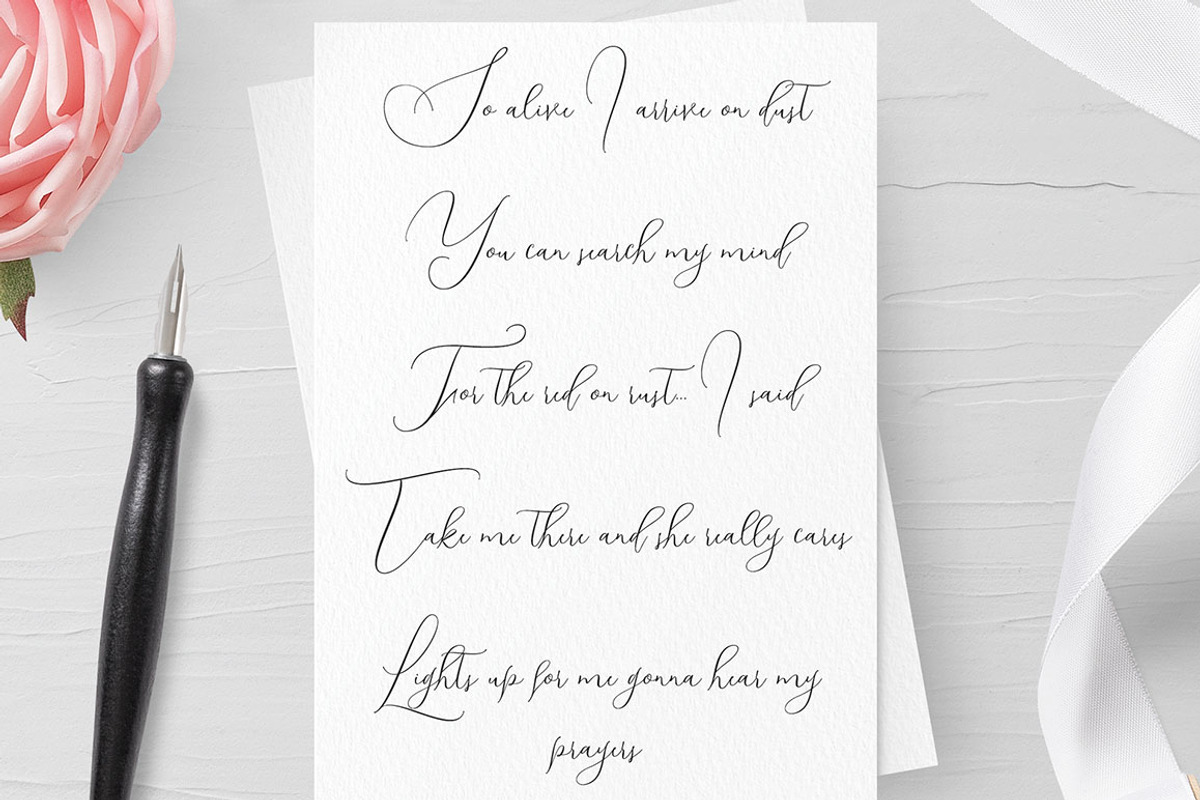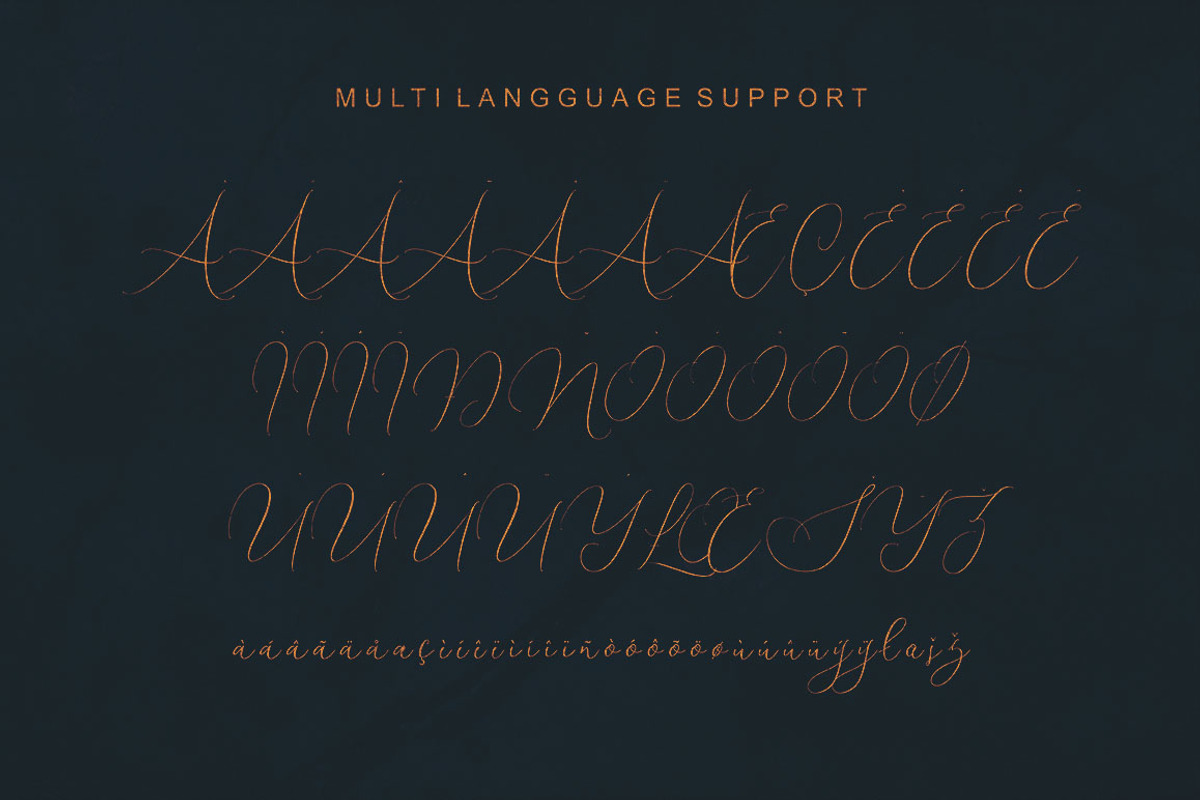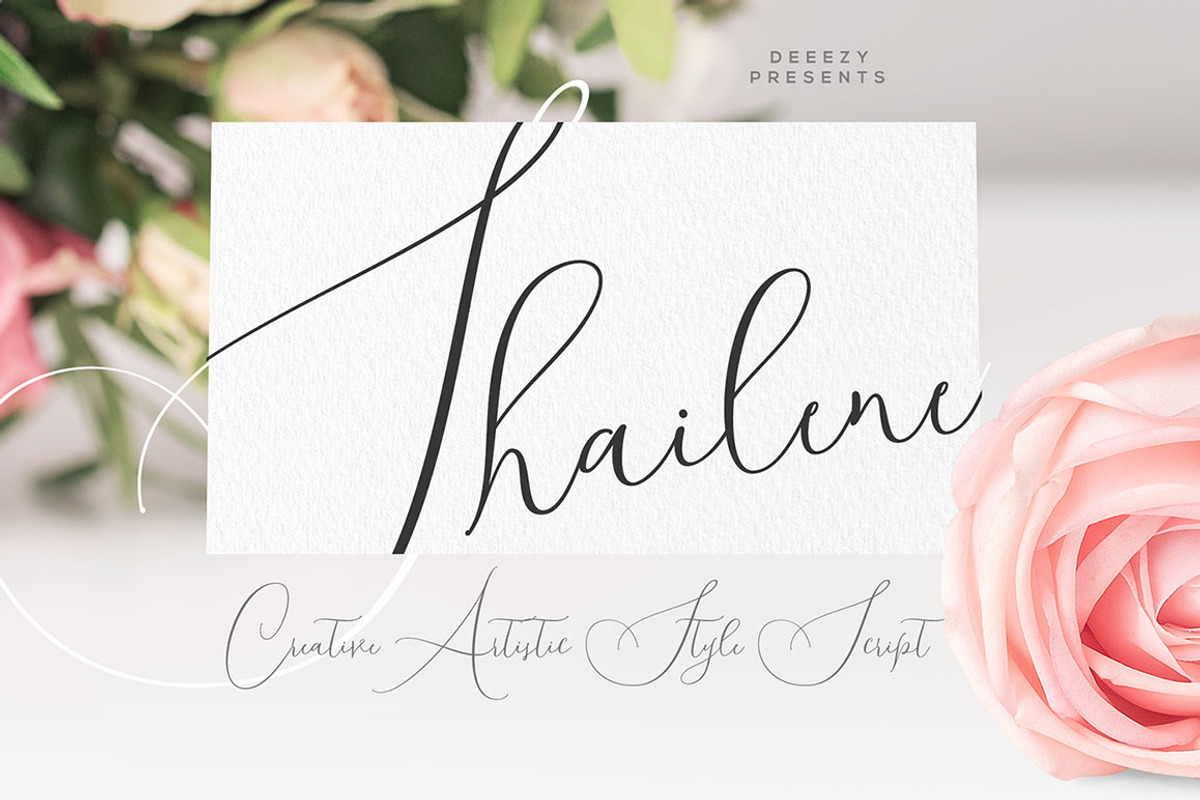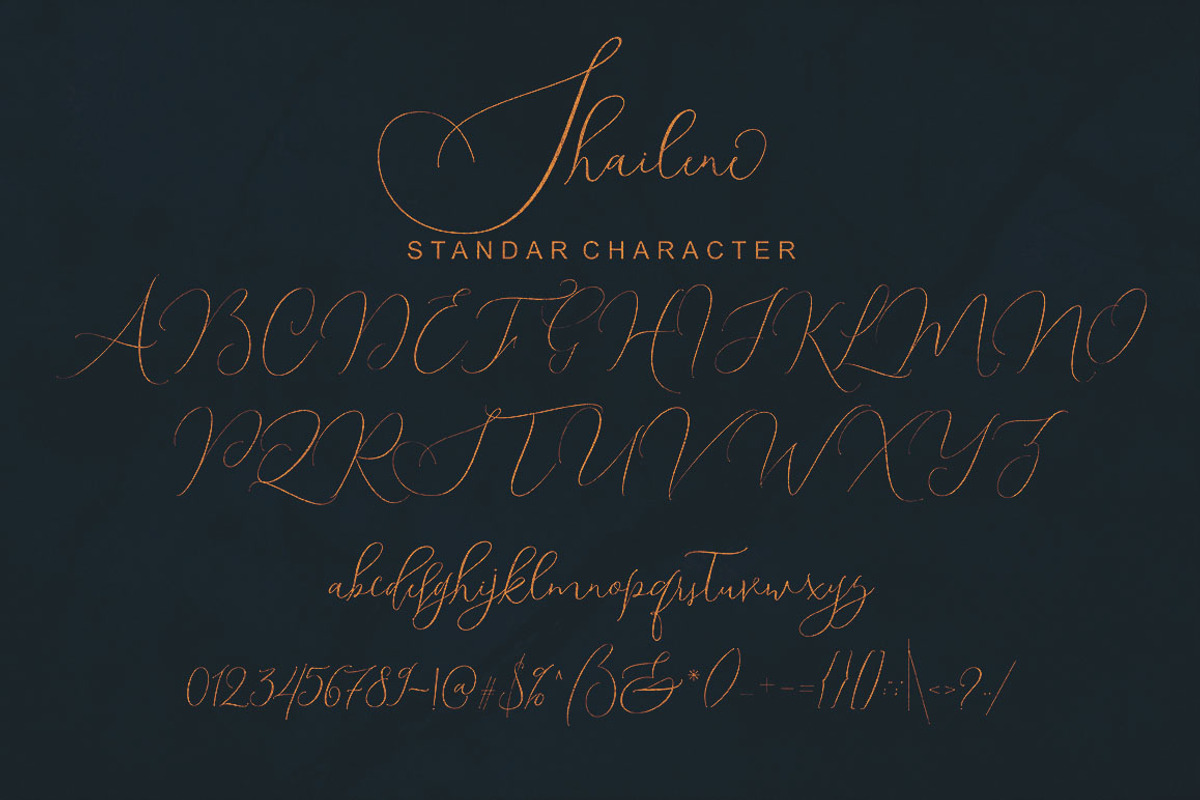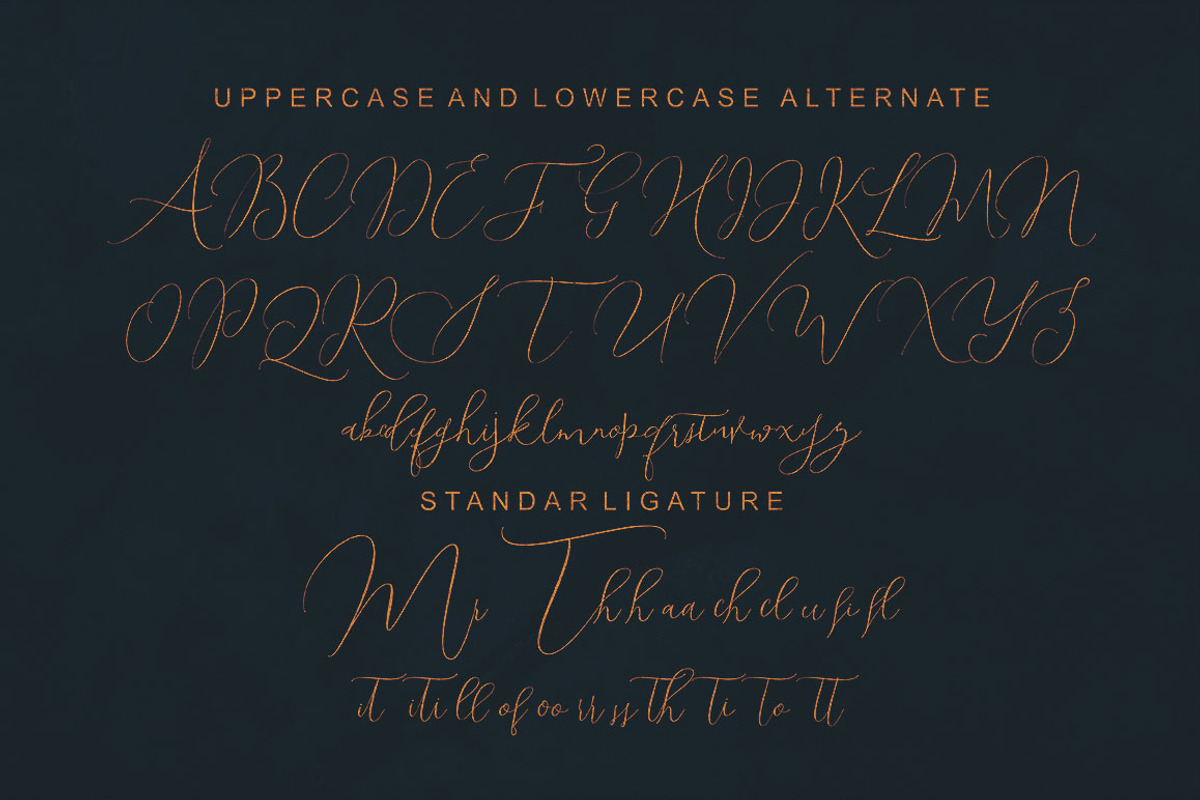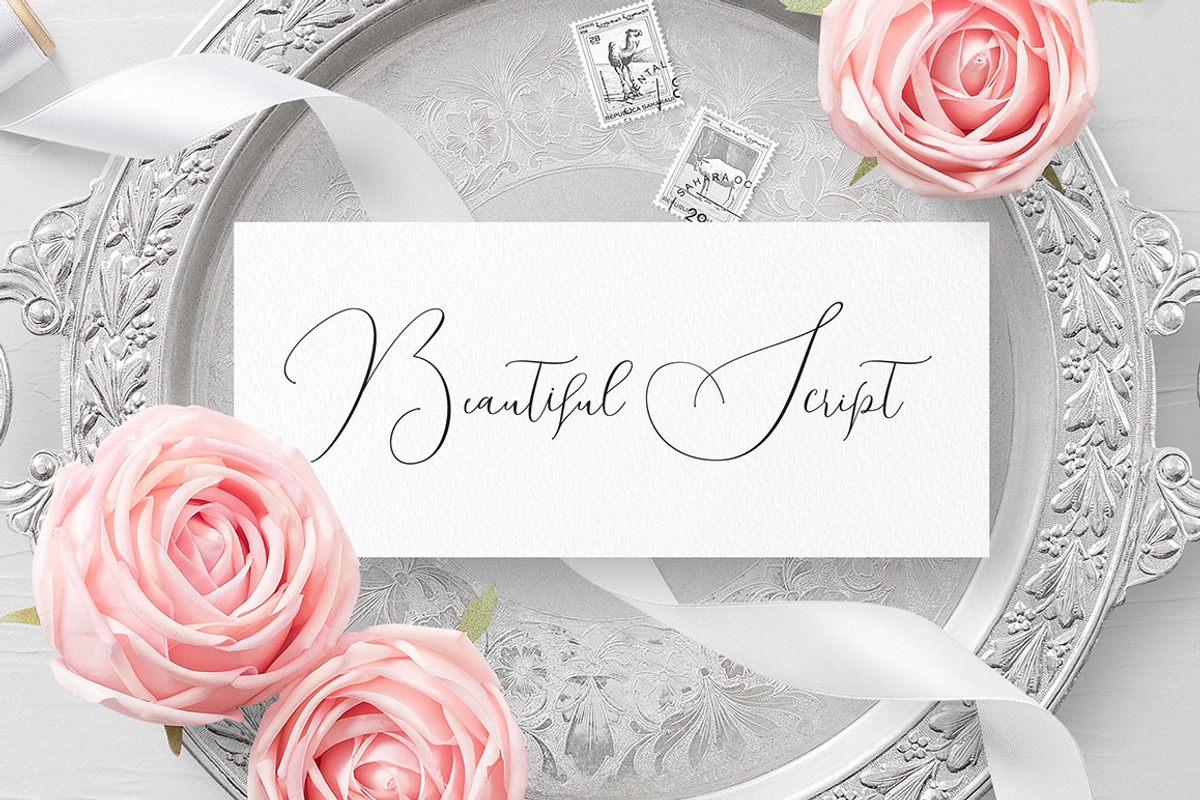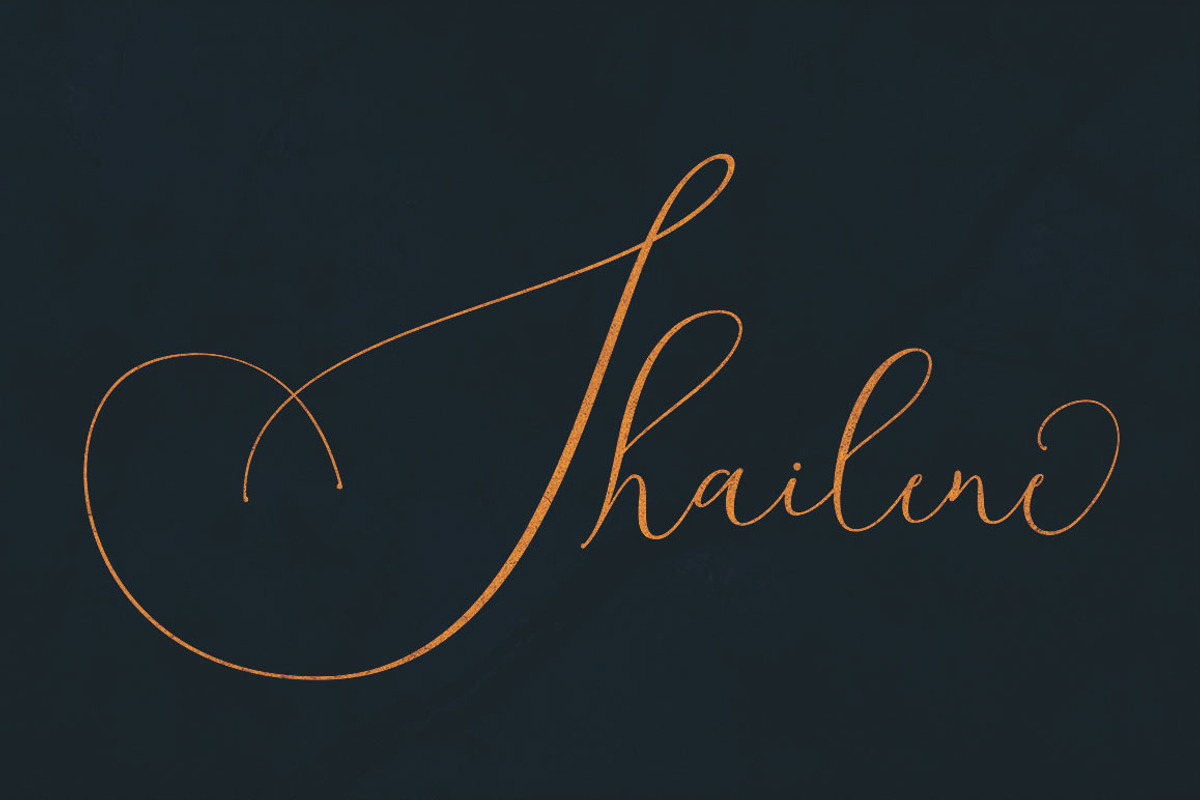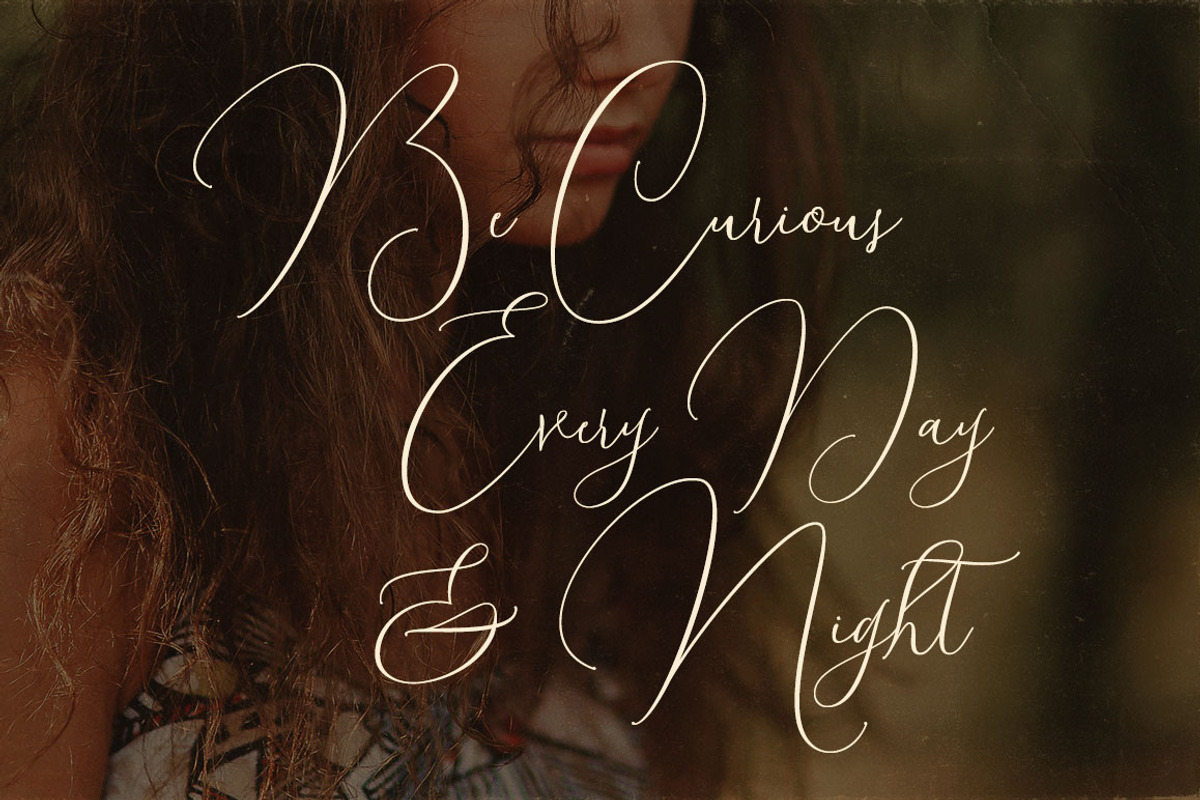
Shailene Script Font
Thin line and handwritten or creative style script font for your new projects. With multi language support and lot of stylistic alternates & swashes. Enjoy ;)
- With multi language support and lot of stylistic alternates & swashes.
Shailene Script Font by Deeezy fits naturally into Branding, posters, packaging, typography.